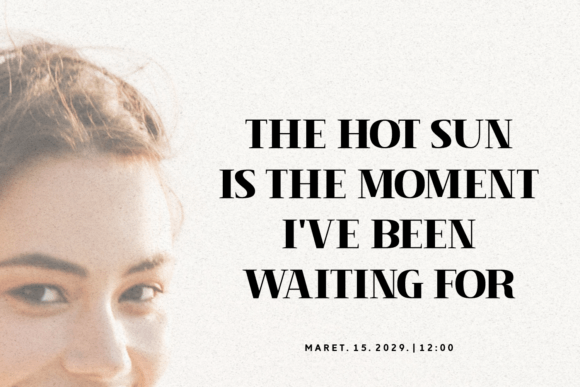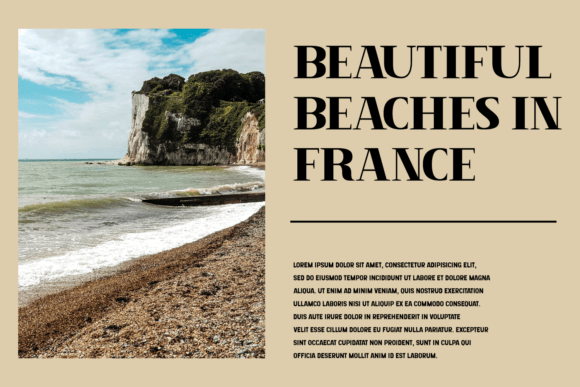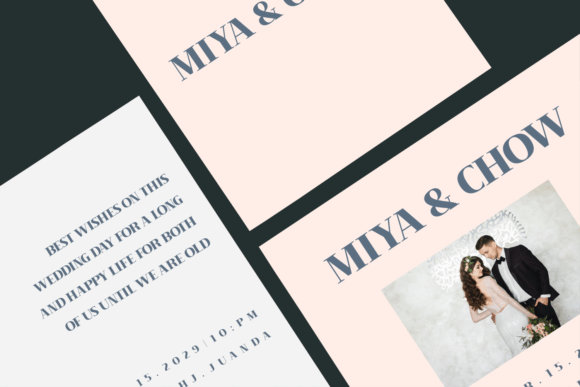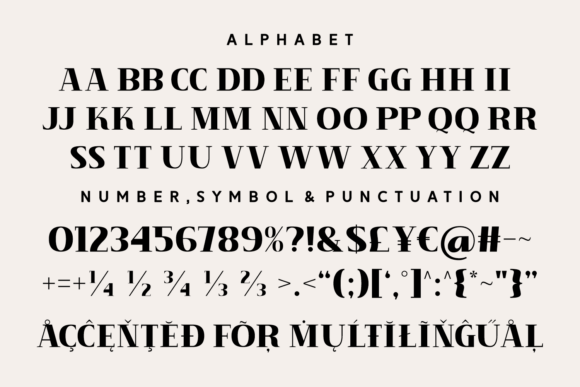
Introducing Daily Dream Font: Elevate Your Designs with Elegance and Sophistication
In the world of typography, a well-crafted font can make all the difference in transforming a design from ordinary to extraordinary. For designers and crafters seeking to infuse their projects with a touch of luxury and refinement, the Daily Dream font is an exceptional choice. This elegant serif font is designed to embody sophistication and timeless beauty, making it perfect for a wide range of applications, from branding and editorial layouts to invitations and more.
The Essence of Daily Dream Font
Daily Dream is characterized by its refined curves and delicate serifs, which combine to create a graceful, modern appeal. The font’s design is rooted in traditional serif typography, yet it boasts a contemporary feel that ensures it remains relevant in today’s fast-paced design landscape. Each letterform is meticulously crafted to exude a sense of charm and professionalism, making it an ideal choice for designers who aim to create polished and sophisticated designs.
Key Features of Daily Dream Font
- Elegant Serif Design: The font’s serif design adds a touch of classic elegance to any project, making it suitable for high-end branding, editorial content, and formal invitations.
- Refined Curves: Daily Dream’s curves are smooth and refined, contributing to its modern and graceful appearance.
- Timeless Beauty: The font’s design is timeless, ensuring that it remains stylish and relevant for years to come.
- Versatility: Daily Dream is versatile and can be used across various design projects, including but not limited to, logos, magazines, blogs, and wedding invitations.
Applications of Daily Dream Font
The versatility of Daily Dream font makes it suitable for a myriad of design applications. Here are a few ideas on how to incorporate this beautiful font into your projects:
- Branding: Use Daily Dream to create a sophisticated and luxurious brand identity. Its elegant serifs and refined curves make it perfect for high-end brands looking to make a lasting impression.
- Editorial Layouts: Add a touch of elegance to your magazines, newspapers, and blogs with Daily Dream. Its readability and classic appeal make it an excellent choice for body text and headlines.
- Invitations: Whether it’s a wedding invitation, a birthday party invite, or a corporate event, Daily Dream can help set the tone for a sophisticated and memorable occasion.
Tips for Using Daily Dream Font Effectively
To maximize the impact of Daily Dream font in your designs, consider the following tips:
- Pair with Complementary Fonts: For added visual interest, pair Daily Dream with a sans-serif font for contrast. This combination works well for headings and body text.
- Adjust Line Spacing: Ensure your text is easy to read by adjusting the line spacing. Daily Dream’s elegant design shines when given enough breathing room.
- Play with Weights: If Daily Dream comes in multiple weights, experiment with them to create visual hierarchy in your design. Use a lighter weight for body text and a heavier weight for headings.
Daily Dream font is a stunning addition to any designer’s toolkit. Its elegant serif design, refined curves, and timeless beauty make it the perfect choice for those looking to add a touch of sophistication and luxury to their projects. Whether you’re working on a branding project, laying out an editorial piece, or designing invitations, Daily Dream is sure to elevate your designs to new heights. With its versatility and classic appeal, this font is poised to become a favorite among designers and crafters seeking to create polished, professional, and visually appealing designs.
Embrace the elegance of Daily Dream font in your next project and experience the transformative power of typography in design.